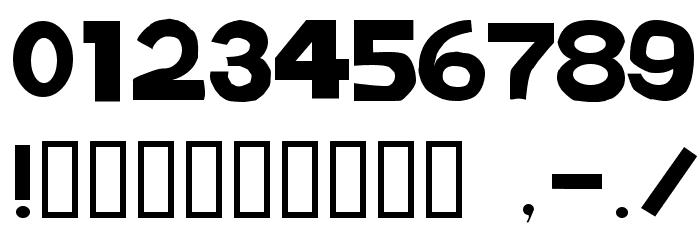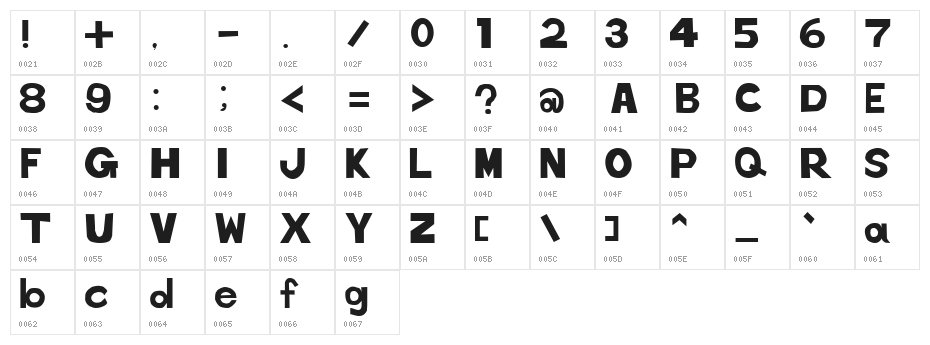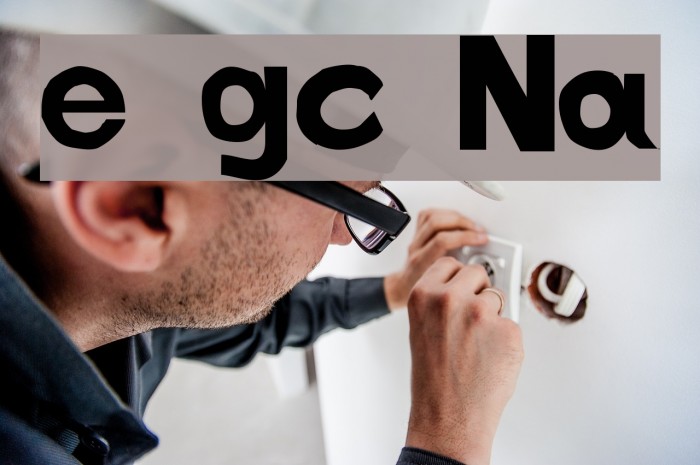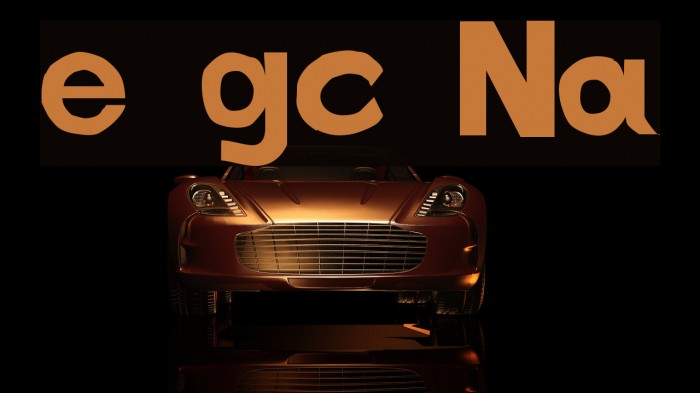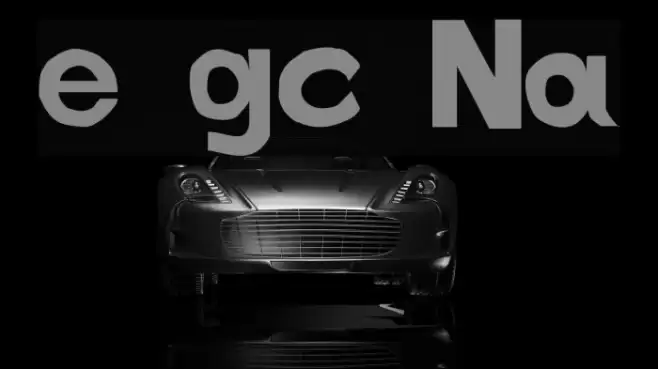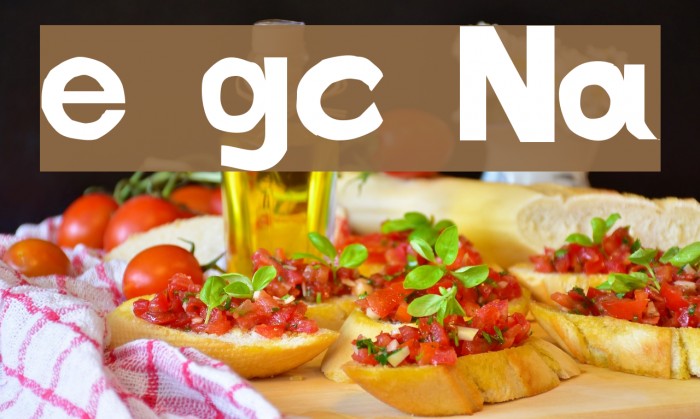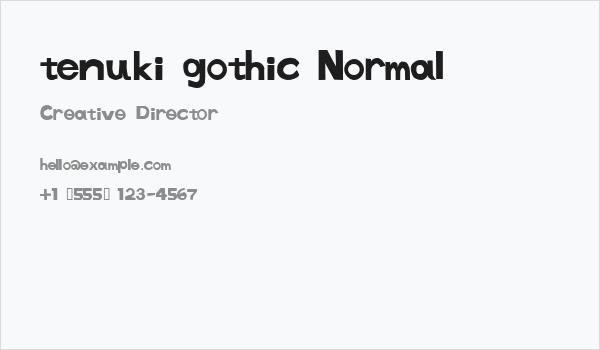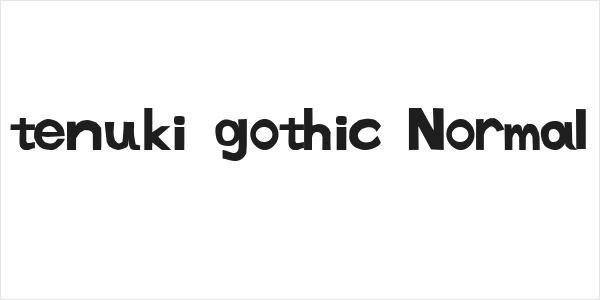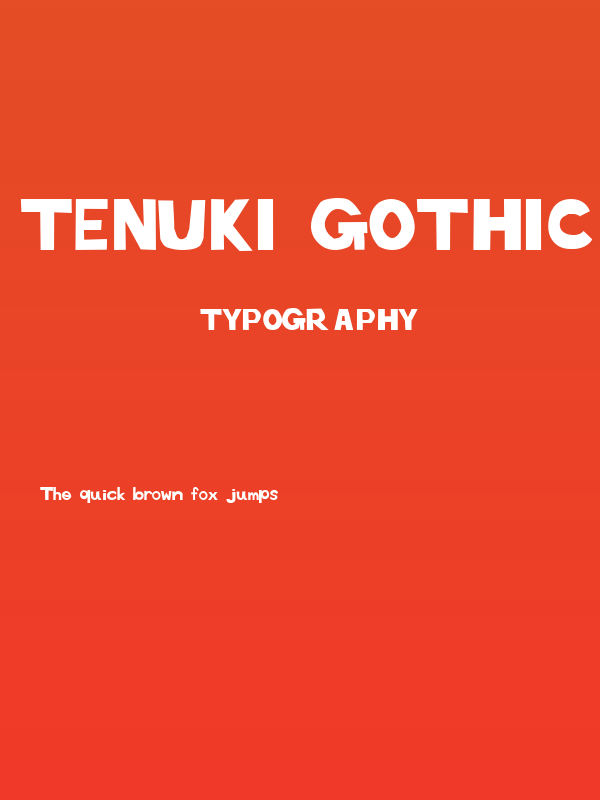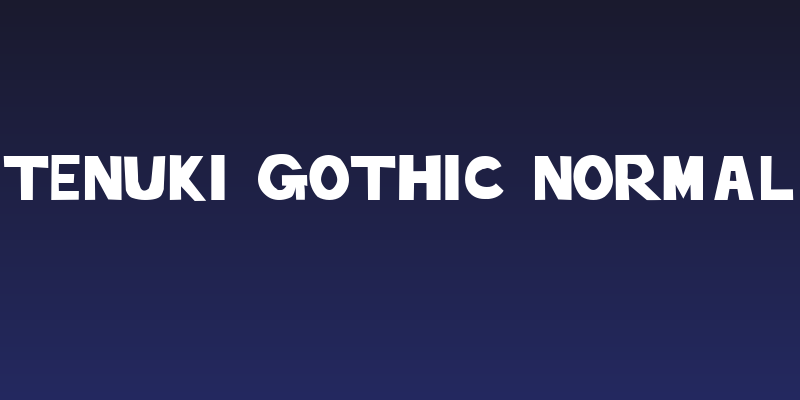
tenuki gothic Normal Font
tenuki gothic Normal Description
This font features bold, geometric letterforms with a strong presence. The uppercase letters are blocky and assertive, while the lowercase characters maintain a consistent weight, offering a harmonious blend of modernity and tradition. The numerals are equally bold, ensuring readability and impact. Special characters are designed with the same boldness, making them stand out. The overall design is clean and straightforward, with a focus on clarity and strength, suitable for making a statement.